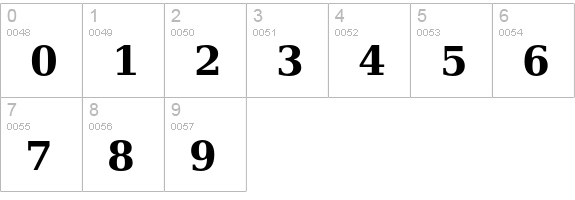
Prima Serif Bold is a strong, high-contrast variant in the Prima typeface family \xE2\x80\x94 well suited to headlines, attention-grabbing titles, and strong calls-to-action.
Prima Serif Bold font is a striking and elegant typeface designed to make a bold statement. With its strong, thick serifs and clean lines, this font exudes confidence and sophistication. Perfect for headlines, titles, and branding projects, Prima Serif Bold commands attention and adds a touch of class to any design. And the best part? Prima Serif Bold is available for free download at FontsMarket.com, making it accessible to designers and creatives looking to elevate their projects without breaking the bank. Don't miss out on this opportunity to add a touch of timeless elegance to your designs with Prima Serif Bold font.